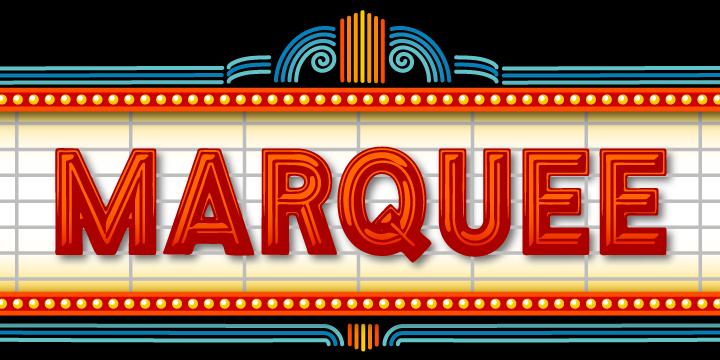
Marquee Font is perfect for theater posters, movie title designs, vintage casino signage, Broadway show marketing, entertainment venue branding, classic diner menus, retro advertising campaigns, and glamorous event invitations.
Marquee Font is exciting because it captures the dazzling spectacle and theatrical grandeur of classic American entertainment, translating the bright lights and star-studded glamour of Broadway marquees into typography that instantly commands attention and creates dramatic visual impact. This typeface embodies the golden age of show business, making every design feel like a starring performance.
The Marquee Font family includes Regular, Bold, Light, and Bulb variations, along with decorative star elements and classic theater-inspired alternates. Each family member maintains the distinctive showbiz aesthetic while providing designers with comprehensive options for creating spectacular and attention-grabbing typographic compositions that celebrate entertainment and performance.
Marquee Font stands out in the display typography landscape due to its authentic theatrical heritage and commanding stage presence. The font's bold letterforms and confident proportions make it particularly effective for entertainment industry applications where immediate impact and memorable branding are essential. Its ability to convey excitement, glamour, and star quality makes it invaluable for projects requiring powerful visual drama and showmanship.
The entertainment industry applications of Marquee Font make it exceptionally suitable for venues, productions, and media companies. Theaters, concert halls, entertainment districts, and production companies frequently choose this font to establish their show business identity while communicating the excitement and prestige of live performance. The font's ability to suggest both classic elegance and contemporary energy makes it ideal for bridging traditional and modern entertainment experiences.
Design professionals appreciate Marquee Font Free Download for its authentic vintage styling combined with modern technical optimization. The font's carefully constructed letterforms ensure excellent readability at various scales while maintaining its distinctive theatrical character and visual impact. This balance makes it particularly suitable for both large-scale environmental graphics and detailed promotional materials requiring maximum attention-grabbing potential.
The nostalgic appeal of Marquee Font extends beyond theater applications to encompass broader retro and Americana design aesthetics. Its classic proportions and timeless character naturally complement mid-century design themes, vintage hospitality branding, and nostalgic entertainment experiences. This versatility makes it particularly valuable for brands seeking to evoke the glamour and optimism of entertainment's golden age.
Contemporary entertainment marketing increasingly values authentic vintage aesthetics that reference classic show business traditions while remaining relevant to modern audiences. Marquee Font delivers this authenticity through its faithful interpretation of theatrical lettering combined with contemporary design standards. Whether applied to digital platforms, traditional advertising, or environmental graphics, the font maintains its star quality while meeting current professional requirements.